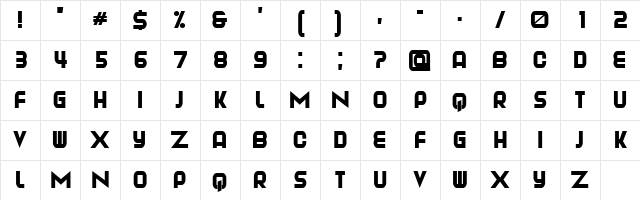
Playa Regular
Playa Family
Design Context for Playa
Playa is a composed and adaptable typeface that performs quietly and consistently across a wide range of design contexts.